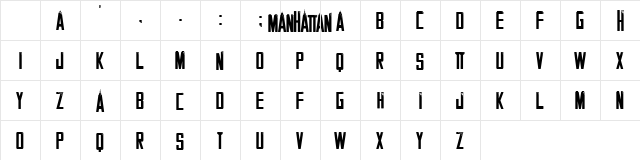
Complete MANHATTAN Regular glyph index. Displaying only characters natively supported by MANHATTAN Regular font.
MANHATTAN is a composed and adaptable typeface that performs quietly and consistently across a wide range of design contexts.